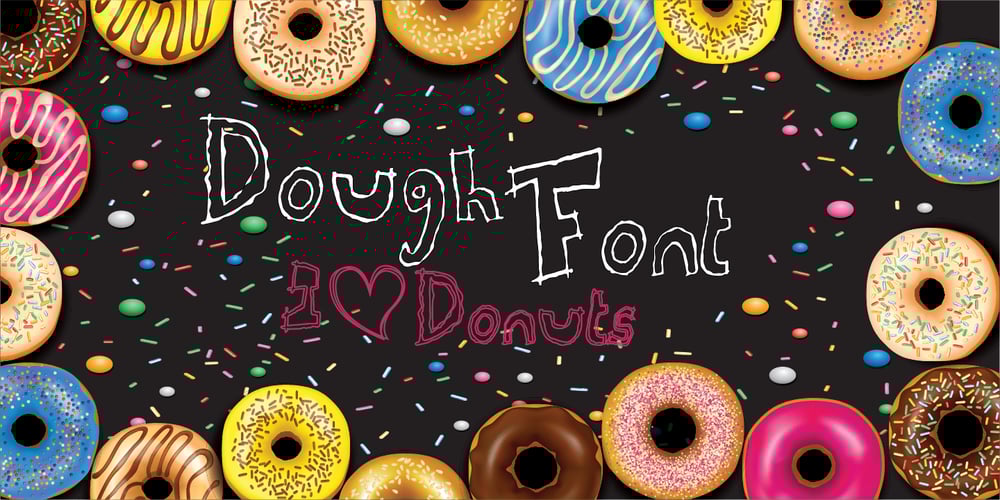
Dough Font Family was designed by Hamid Azzafrar and published by Zefrar. Dough contains 1 styles and family package options. Dough is inspired from making dough, and you can feel the freedom of making letters in a unique and outlaw style.This font can be used in colored illustrations, kids activities and more.